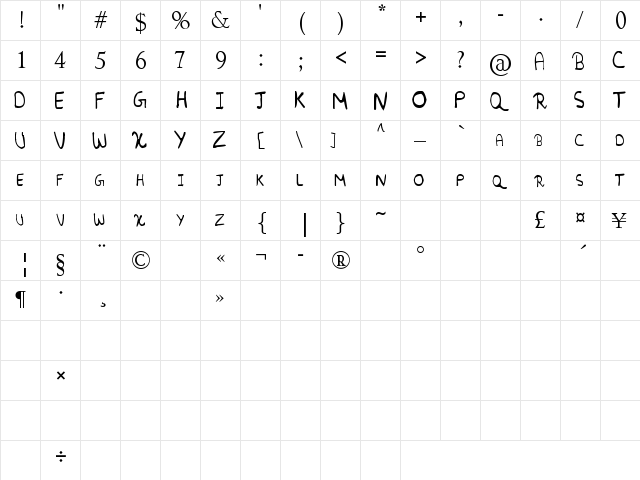
Random font Regular
Design Context for Random font Typeface
Random font is a composed and adaptable typeface that performs quietly and consistently across a wide range of design contexts.